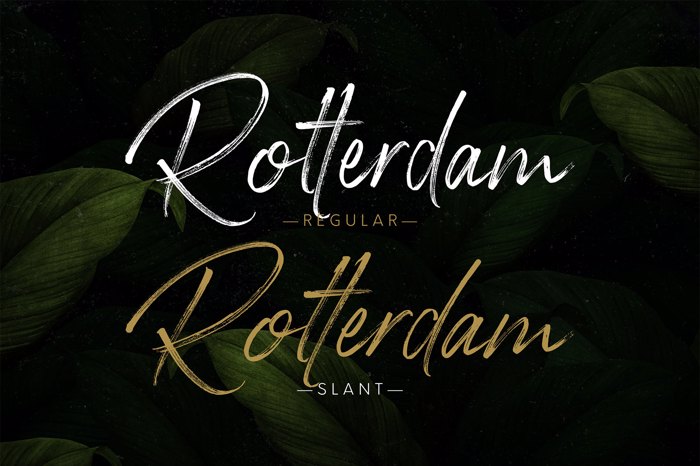
Optimust Font
Slant Style
Optimust! A handwrittent script brush font with 2 styles, regular and slant. Optimust font is suitable for branding, logotype, apparel, T-shirt, Hoodie, product packaging, quotes, flyer, poster, advertising, etc.
1. Uppercase and lowercase characters
2. Multilingual support.
3. Numerals, punctuations, end titling, and ligatures